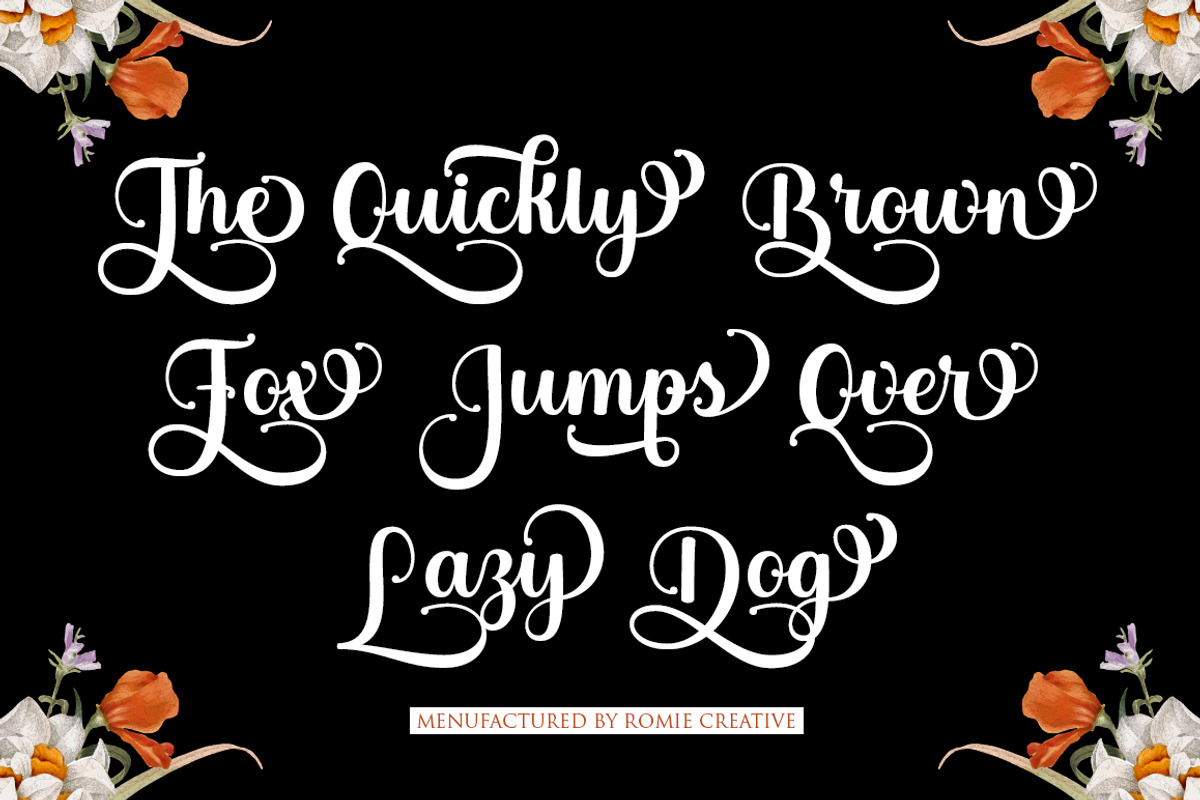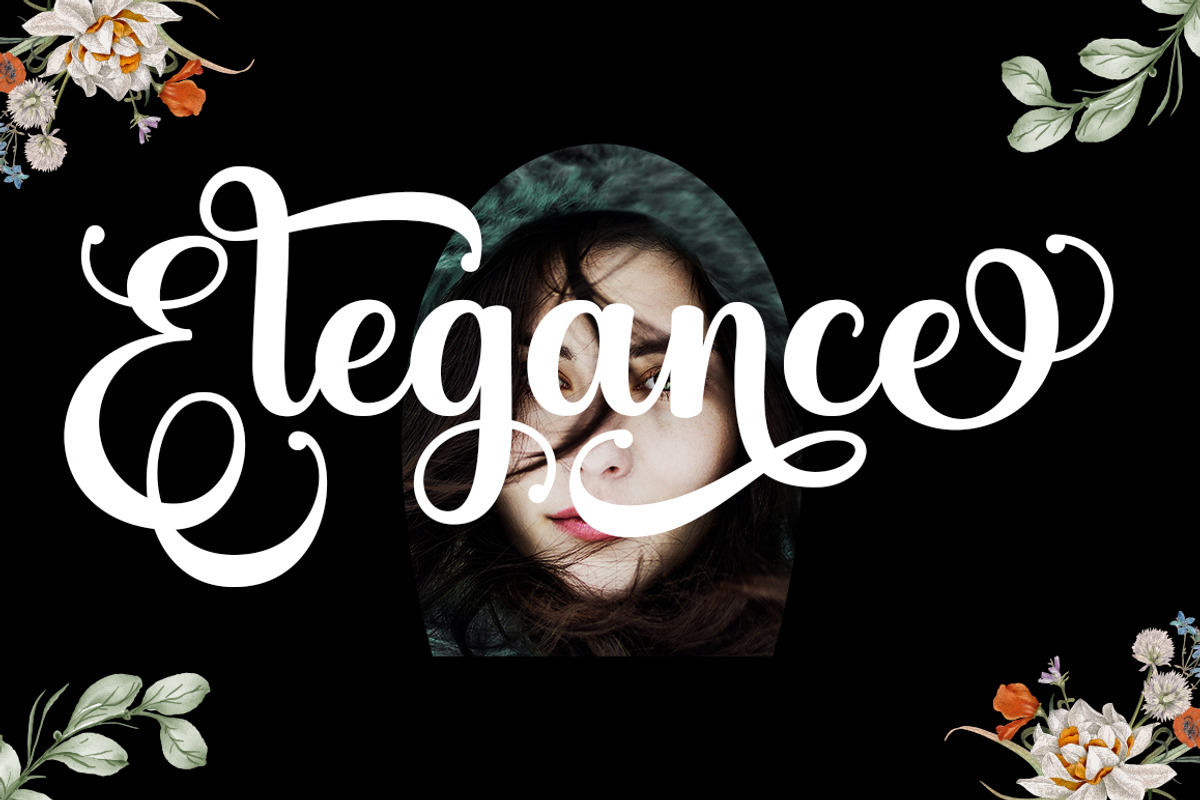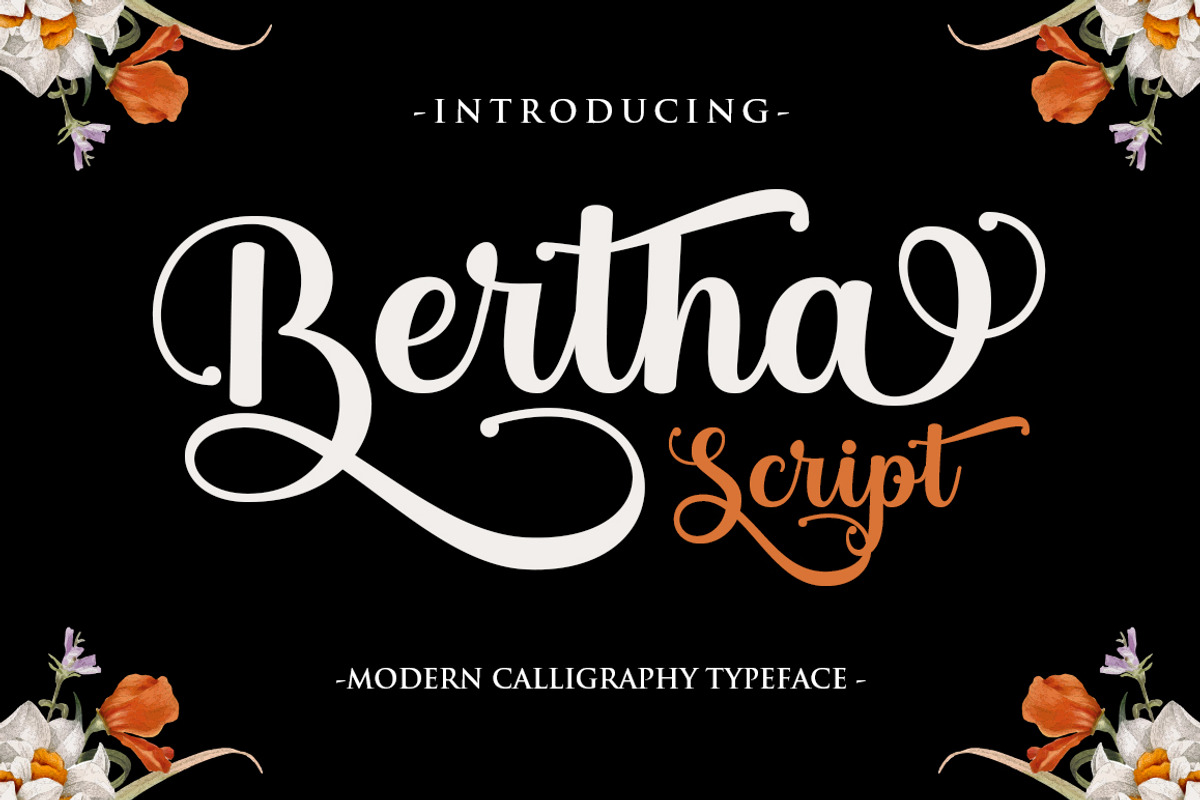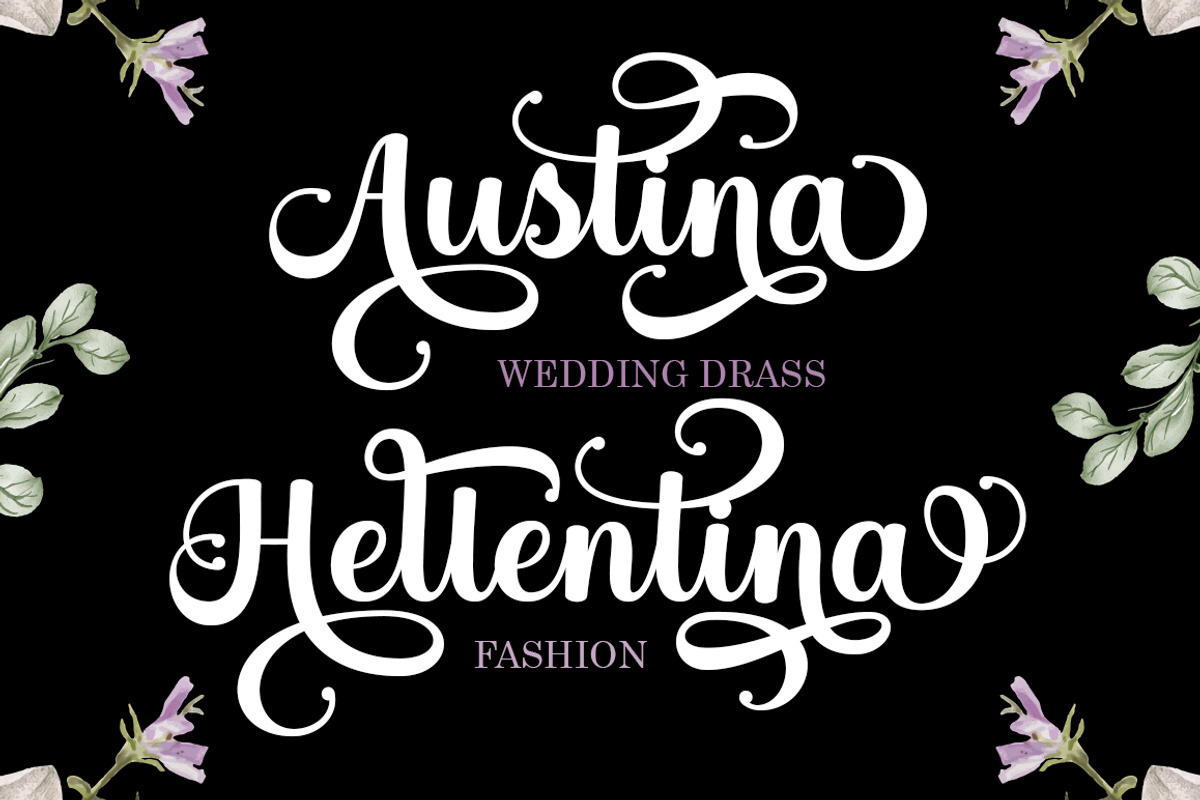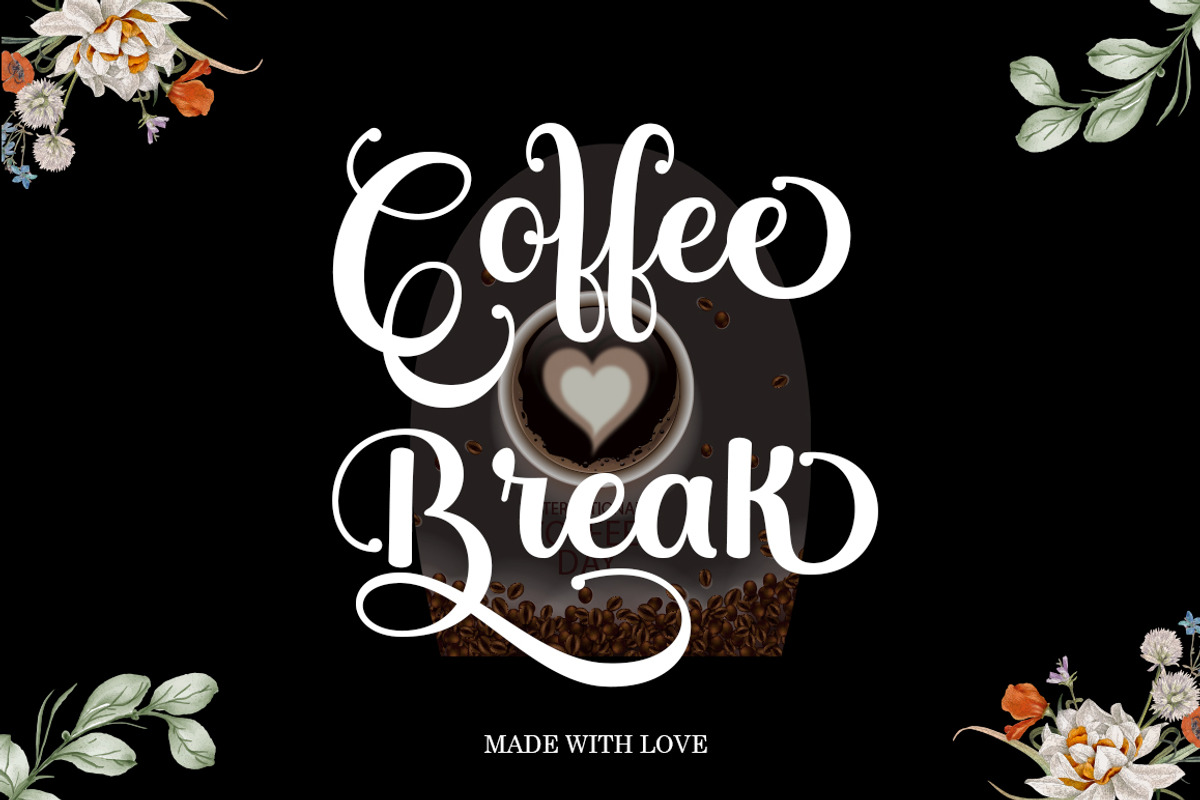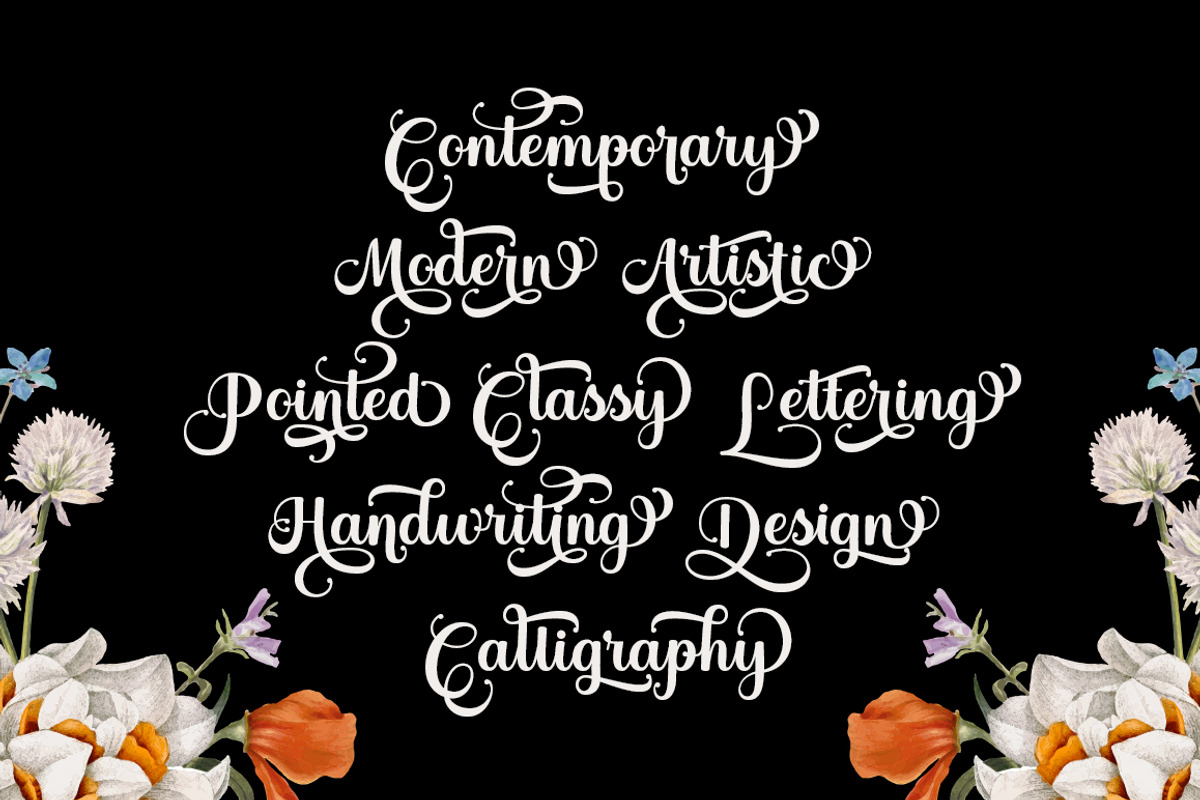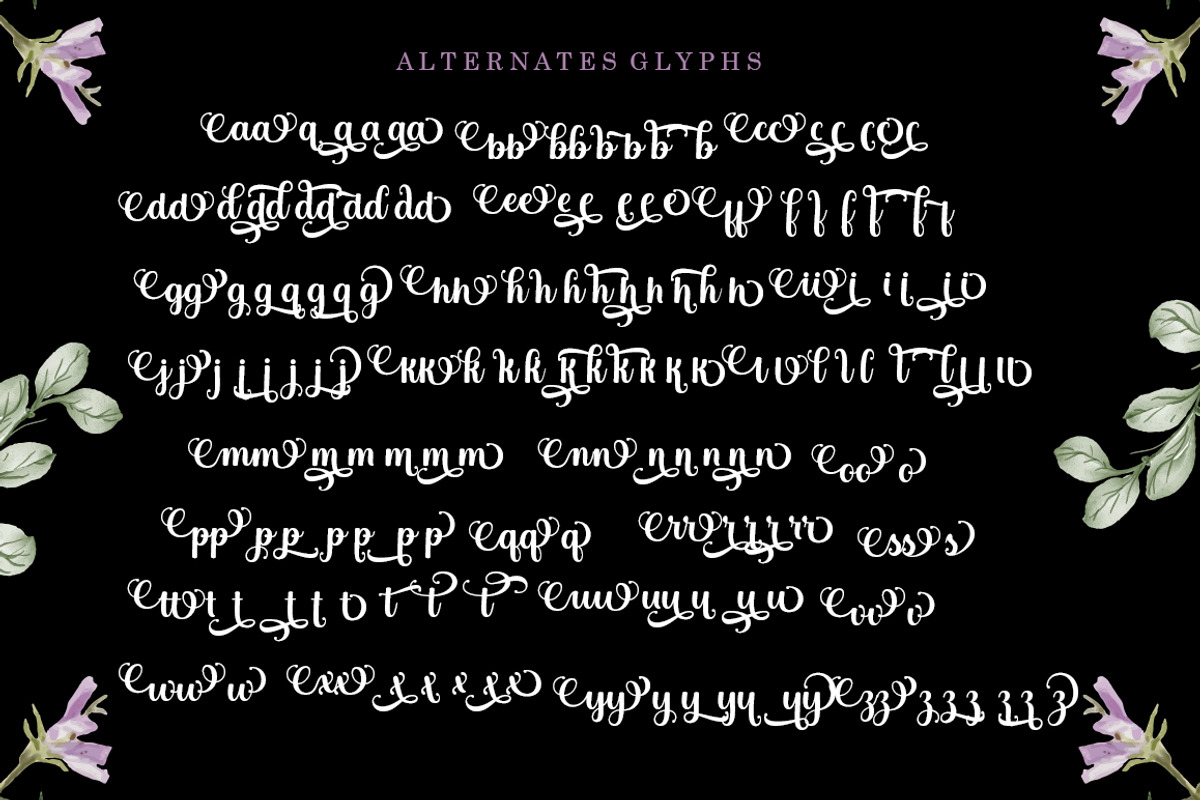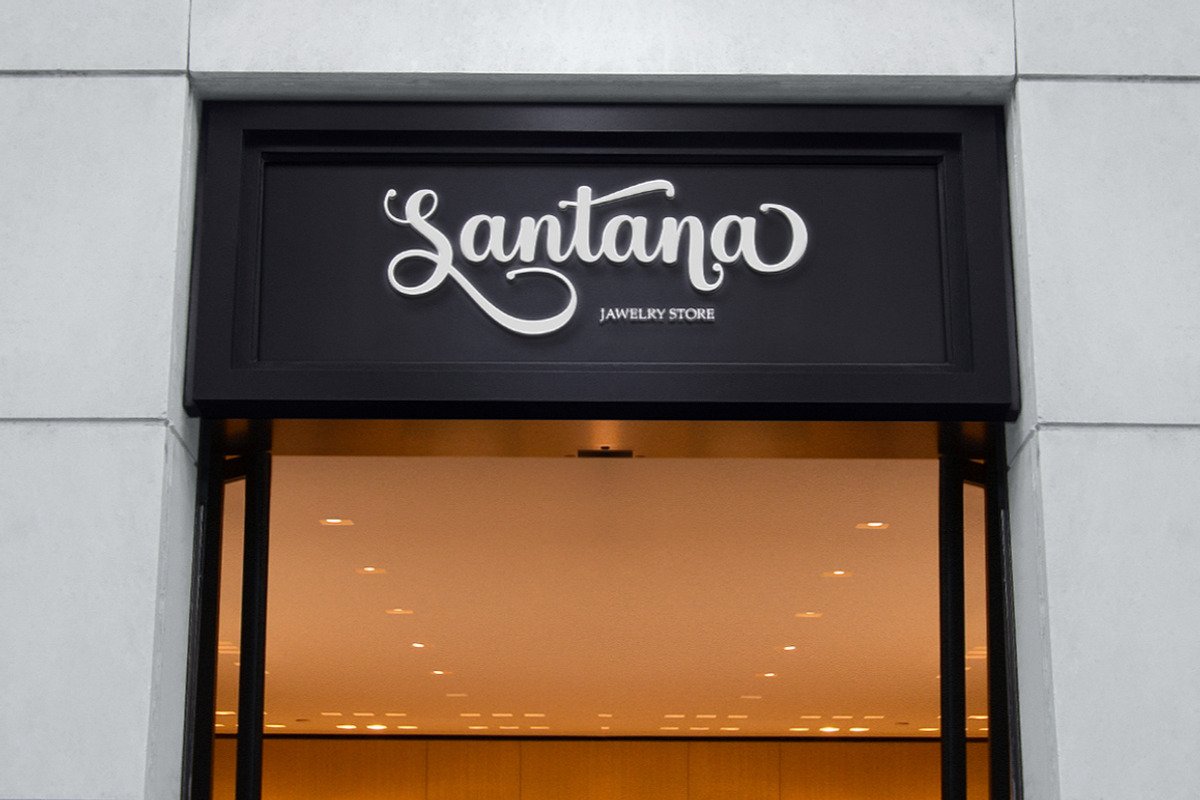
Bertha Script
Bertha Script is a soft and sweet calligraphic typeface, with characters dancing along the baseline. It has a casual and elegant touch. Can be used for various purposes such as logos, wedding invitations, headings, t-shirts, letterheads, signage, labels, news, posters, badges etc.
OpenType features with alternative styles, ligatures, and multiple language support.